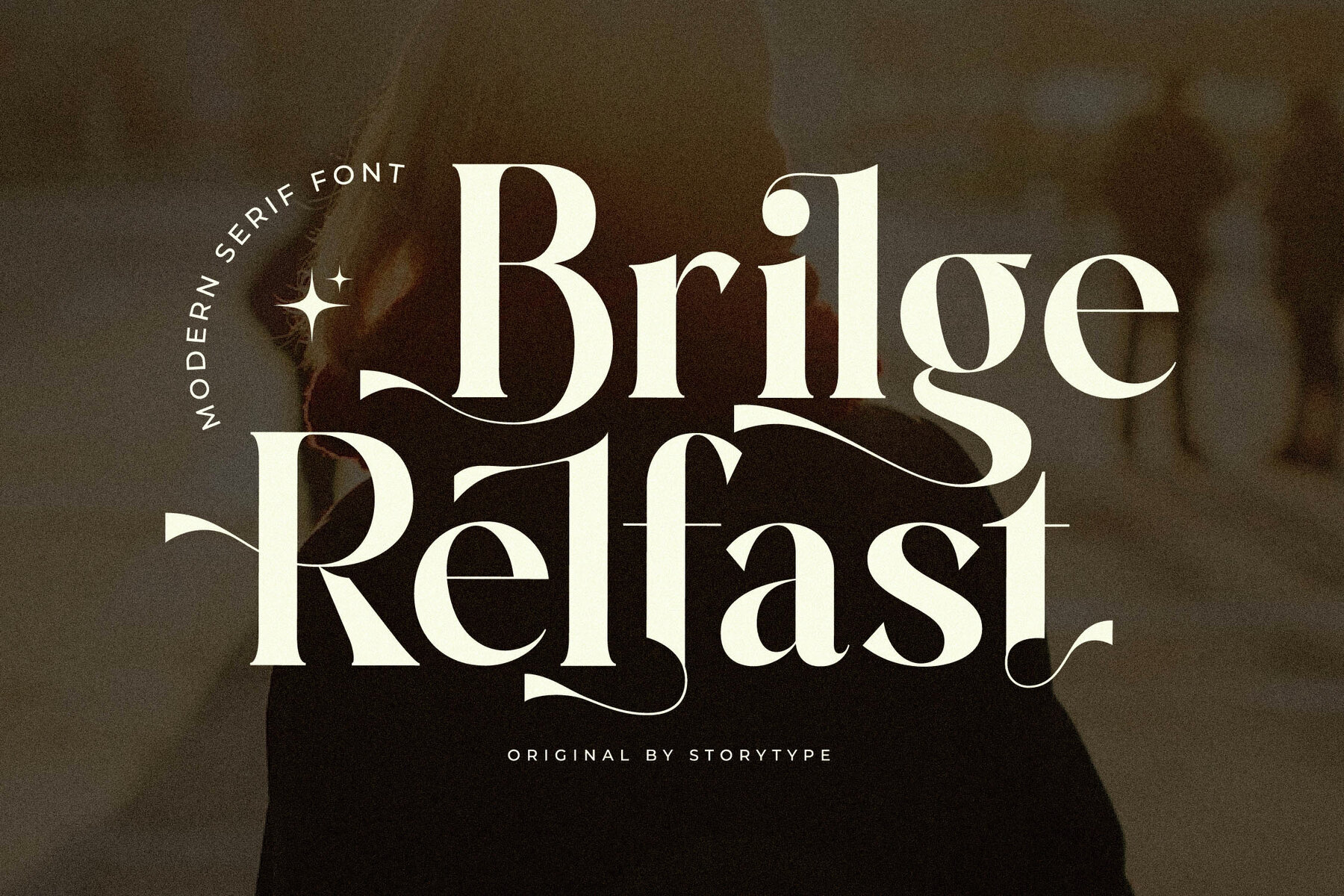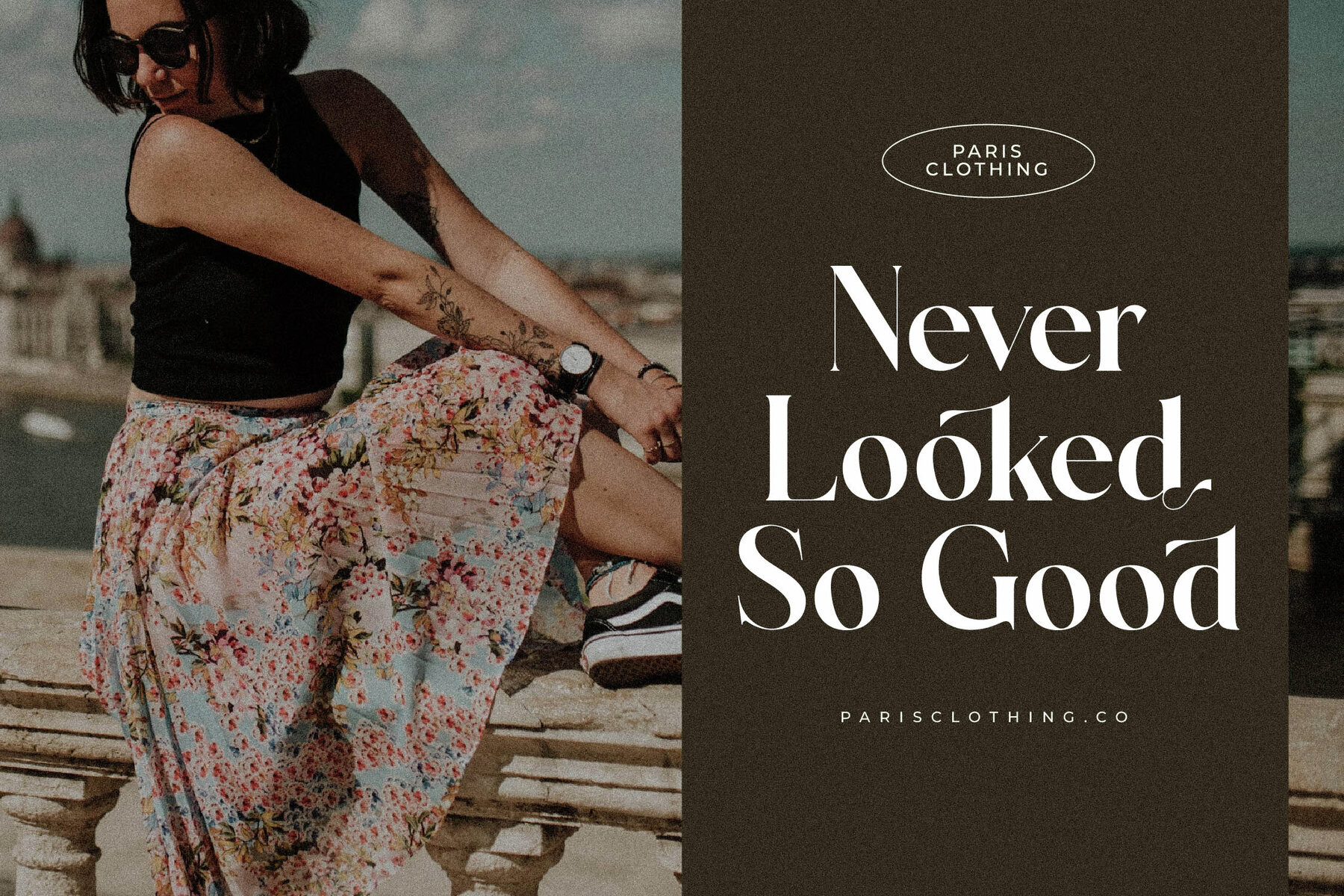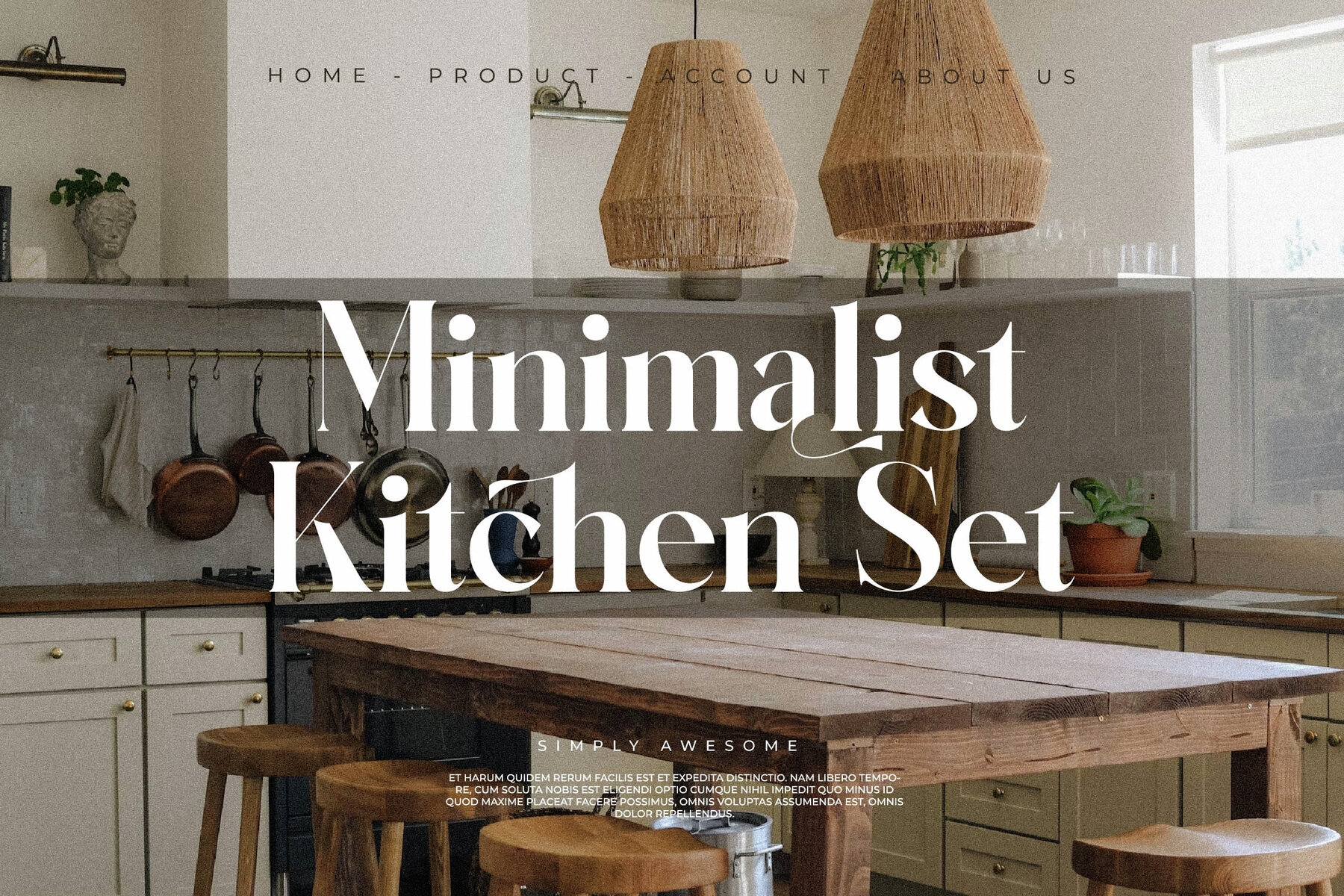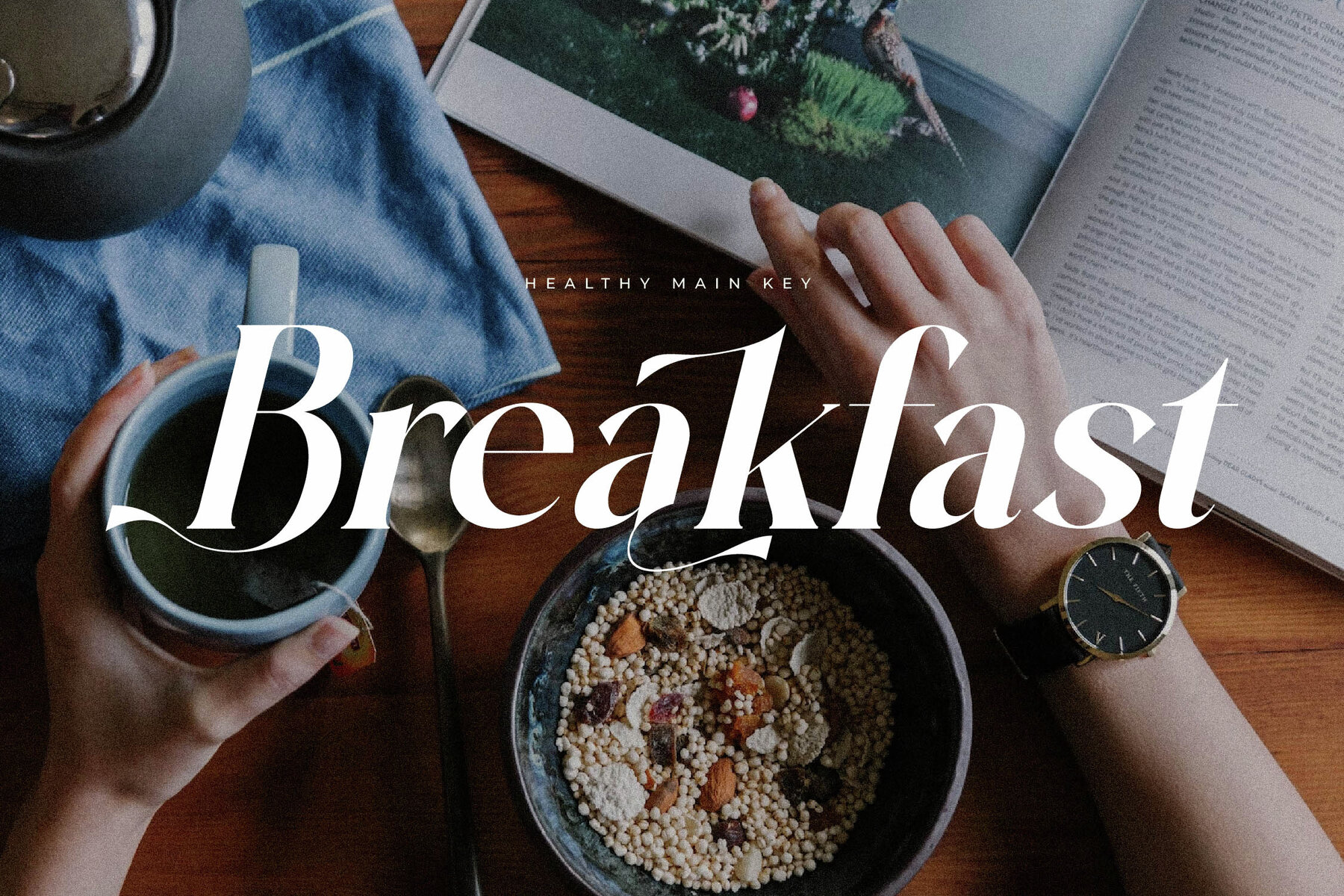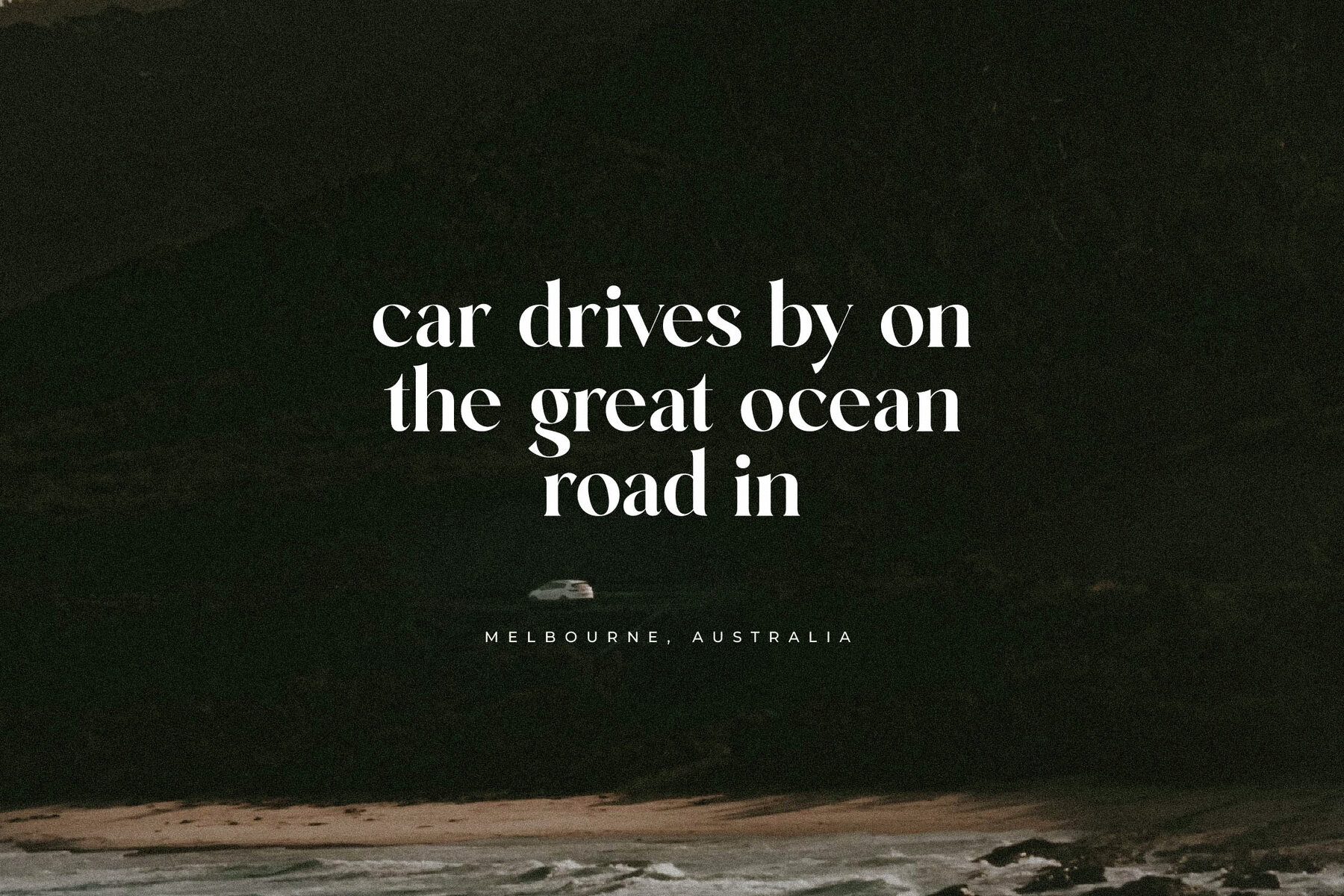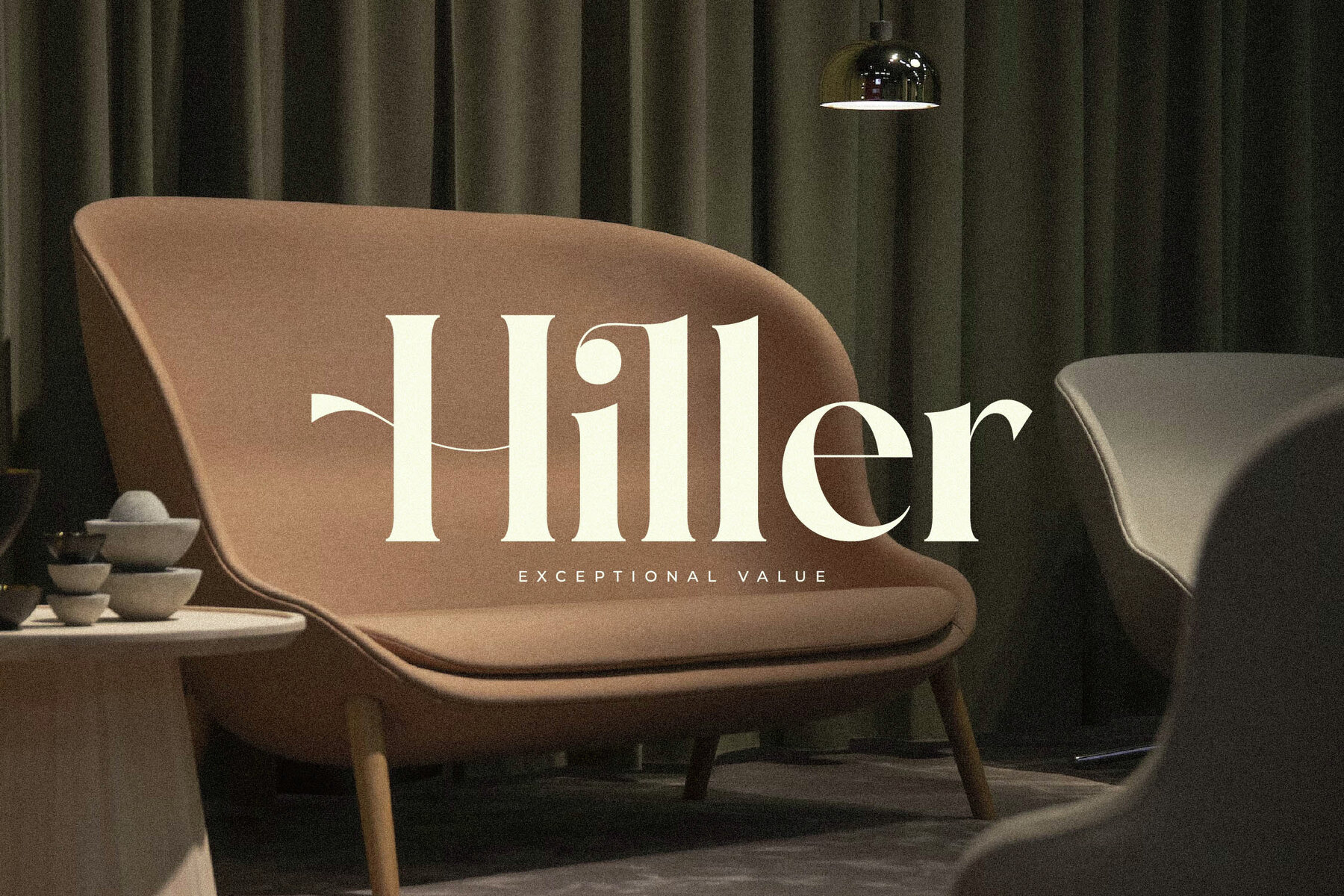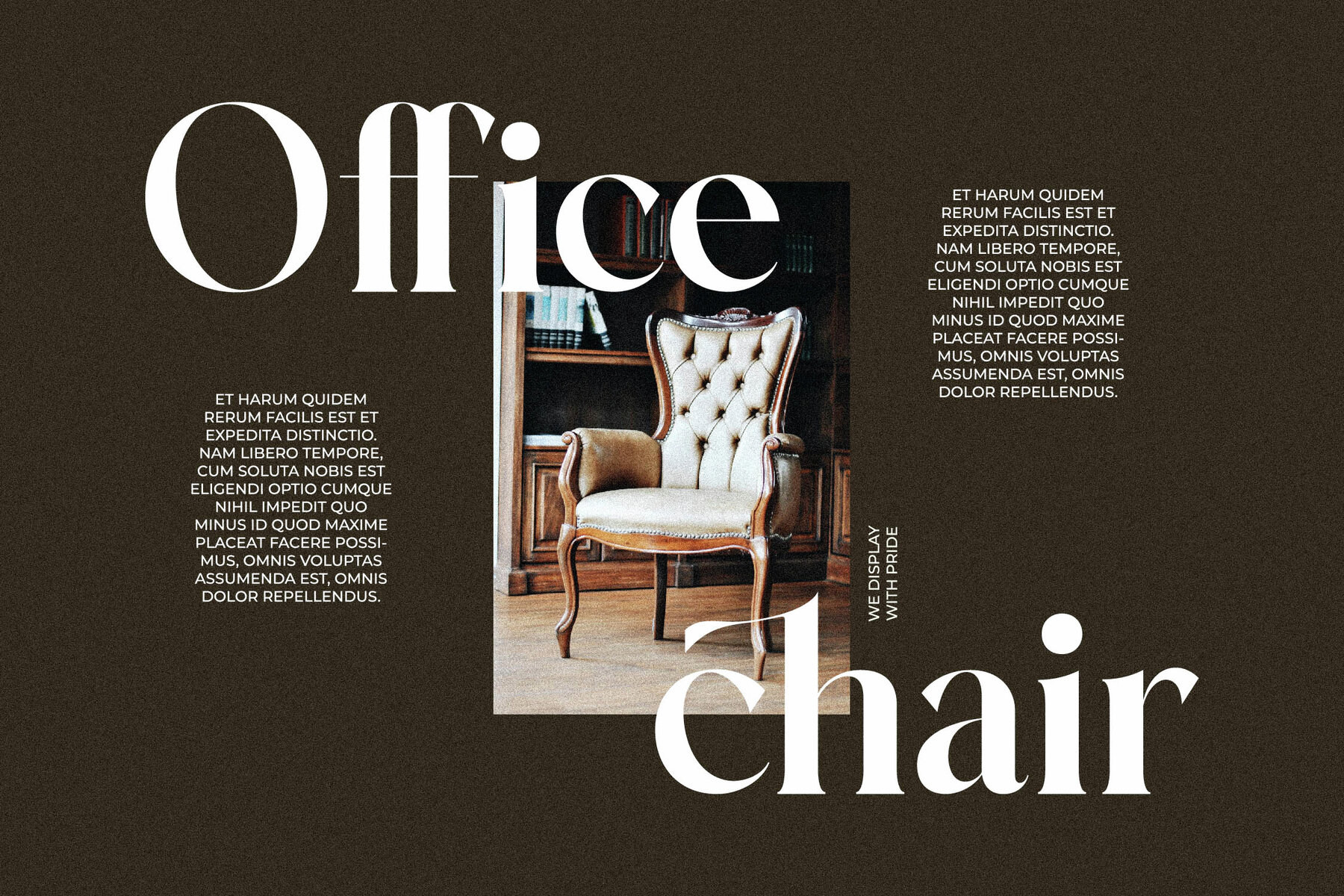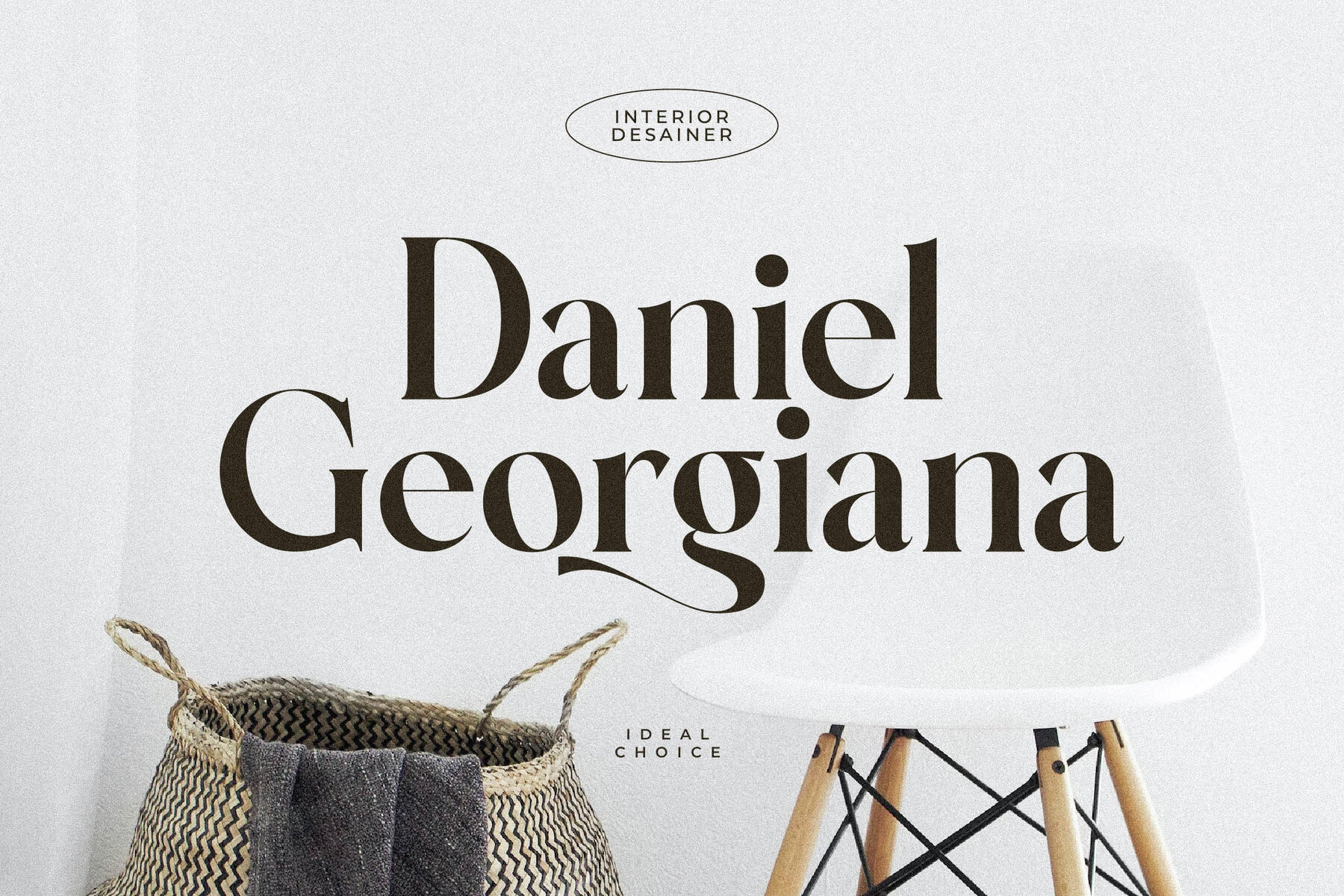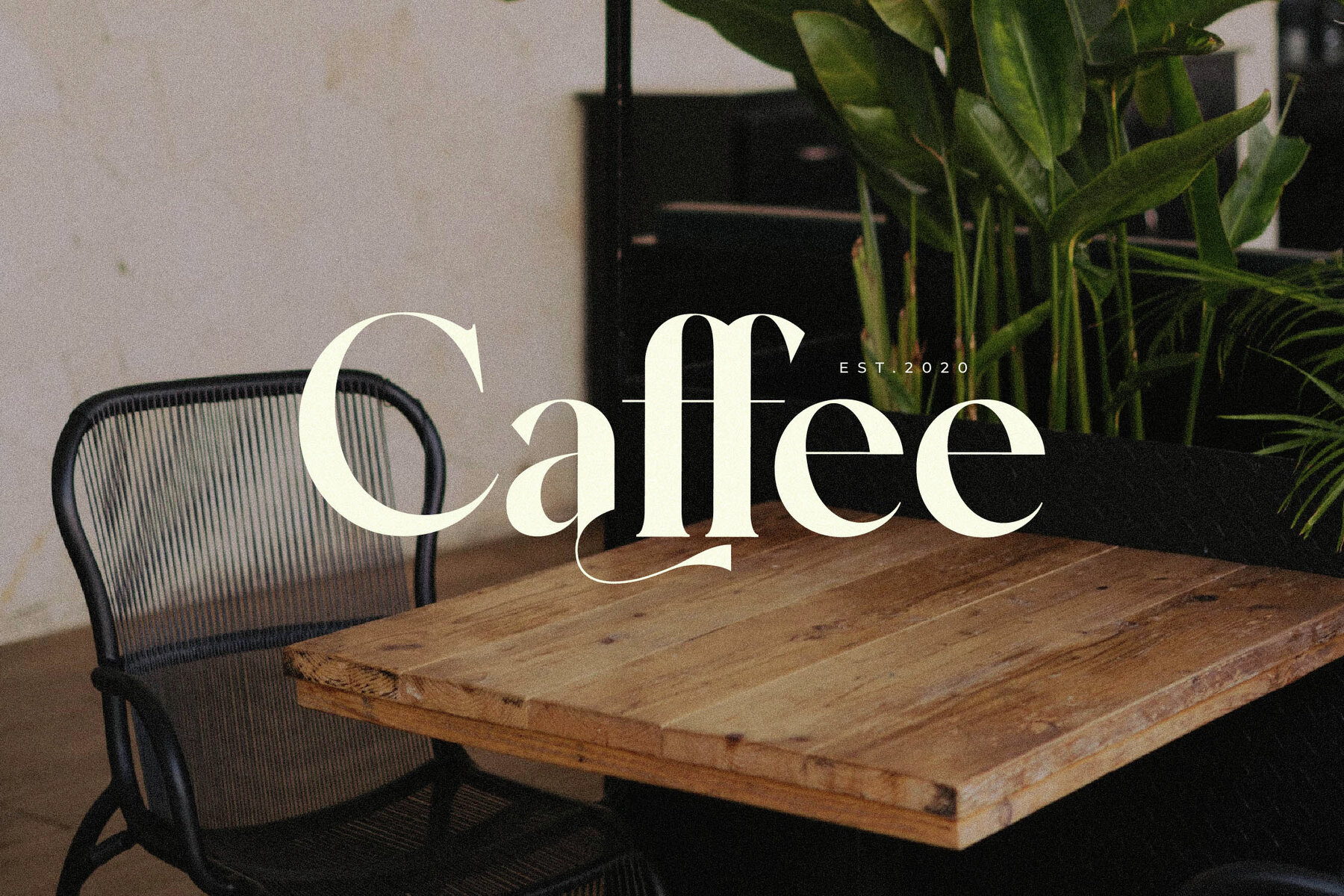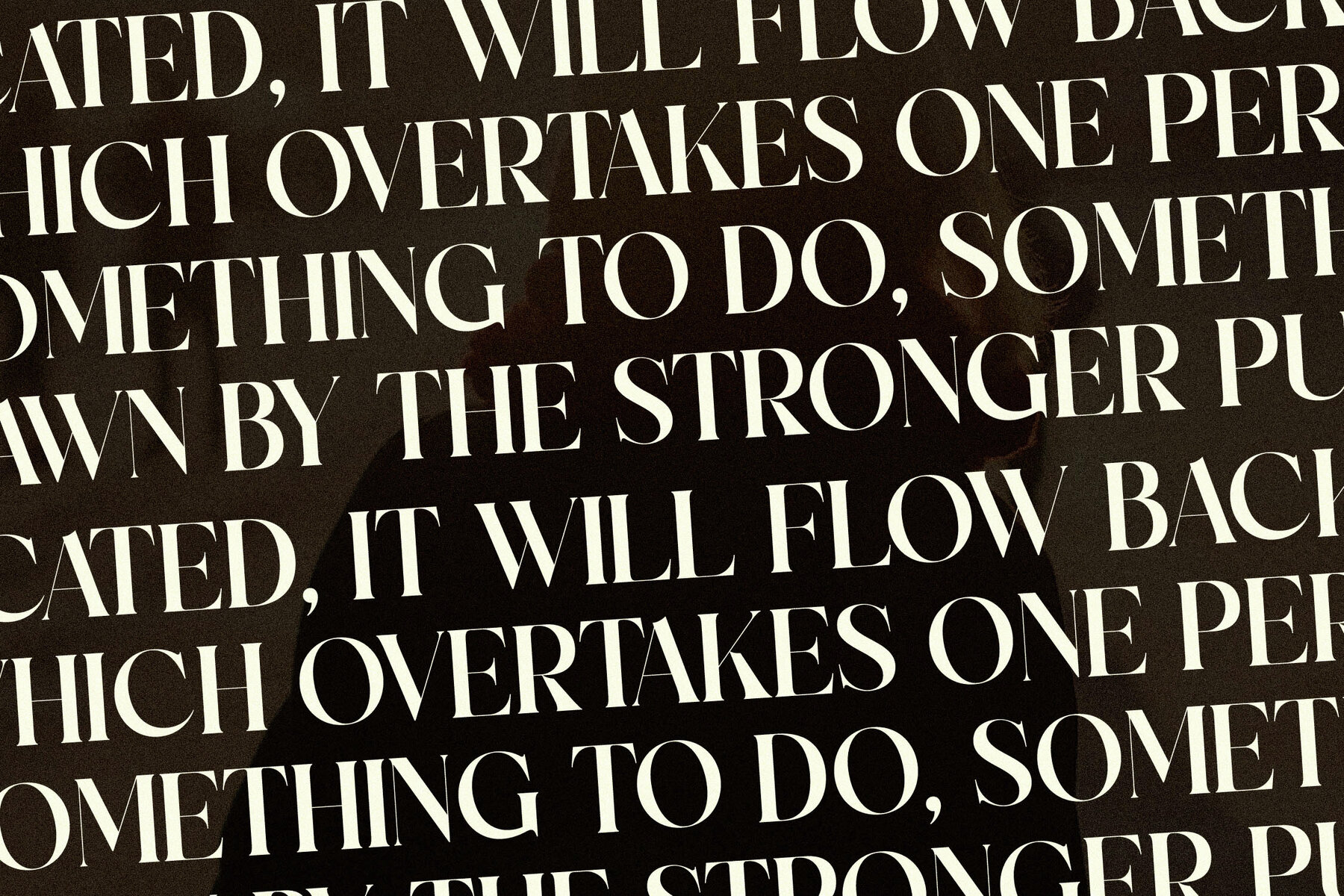
Brilge Relfast Font
Brilge Relfast Regular
Brilge Relfast Italic
Introducing the Brilge Relfast typeface, a sophisticated and distinctive serif font by Storytype Studio. Combining modern elegance with classic style, this typeface is ideal for creating timeless logos, book and movie titles, and representing fashion brands and magazines. Elevate your lettering and quotes with Brilge Relfast's unique appeal.Brilge Relfast Typeface